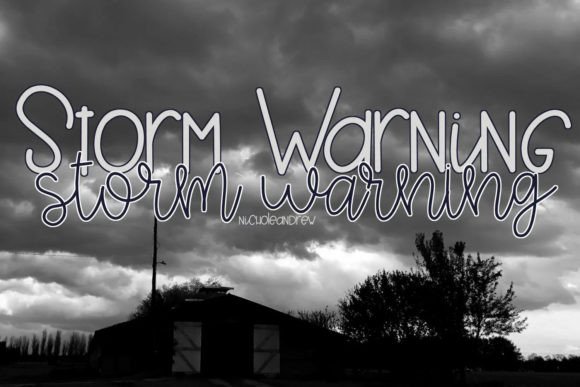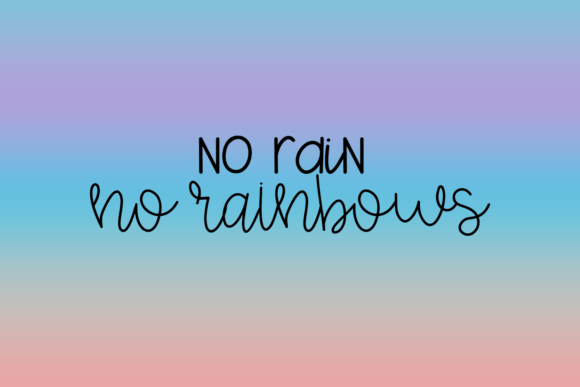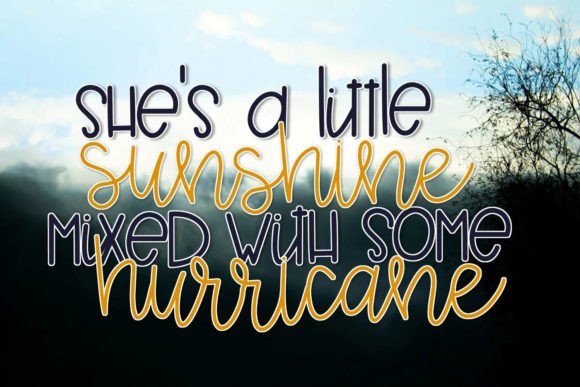
Storm Warning Duo Font
“Introducing Storm Warning, an engaging print and script font duo designed to bring a handwritten feel to your projects. This duo features a print font with a handwritten feel, where some letters run into the next like handwritten notes or letters. It also includes a thin matching script font that complements the print font, creating a harmonious pairing. Use Storm Warning to make your text pop on a variety of projects!
The print font of Storm Warning offers a unique handwritten vibe, evoking the feel of personal notes and letters. The intentional overlapping of some letters adds to the authenticity and charm of the font, making it a great choice for projects where a warm and personal touch is desired.
The thin matching script font in Storm Warning provides an elegant and complementary option. Together, the print and script fonts create a balanced and visually appealing duo, allowing you to add variety and style to your designs.
Consider using Storm Warning on a variety of projects to make your text stand out. Whether you’re working on invitations, cards, signage, or any other creative endeavor, this font duo adds a distinctive and personalized element to your text.
In summary, Storm Warning is not just a font duo; it’s a versatile design tool that brings a handwritten and authentic feel to your projects. With its print font capturing the essence of handwritten notes and the matching script font providing a touch of elegance, Storm Warning is ready to make your text pop and add character to your creative endeavors.”